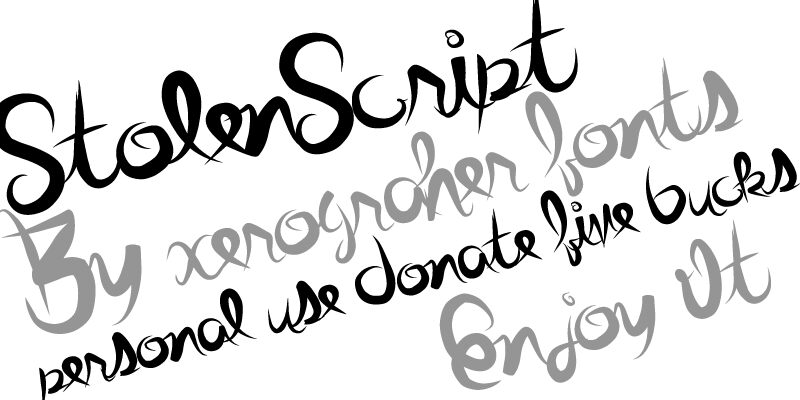
Stolen Script by Max Infeld of Xerographer Fonts is a free calligraphic script with dramatic changes in stroke width and a restless, improvised line. Tall loops, deep descenders, and sweeping cross strokes push far beyond the main letter shapes. The spacing feels deliberately tangled.
Its expressive fashion-editorial character suits magazine covers, music posters, and boutique packaging with an unruly edge. The font is most convincing in branding that wants the wordmark to resemble a quickly drawn signature rather than formal penmanship.